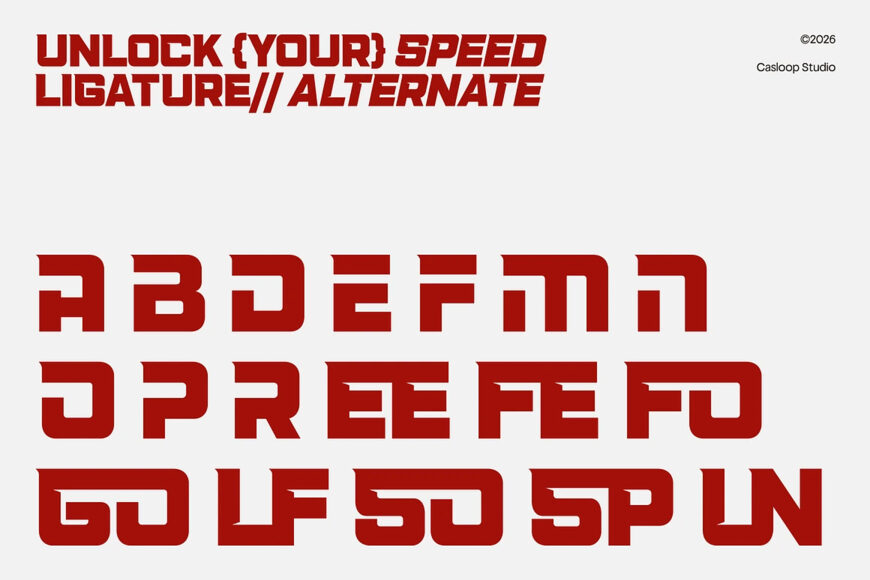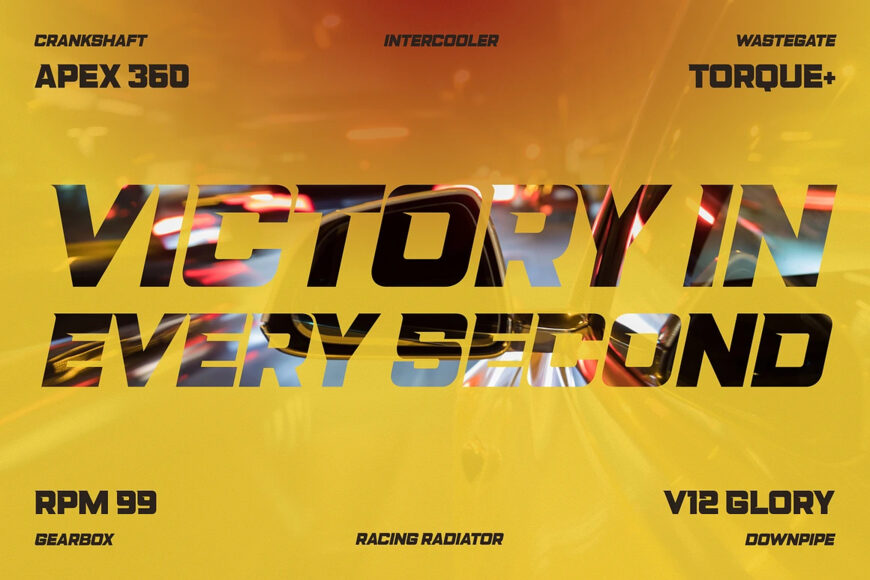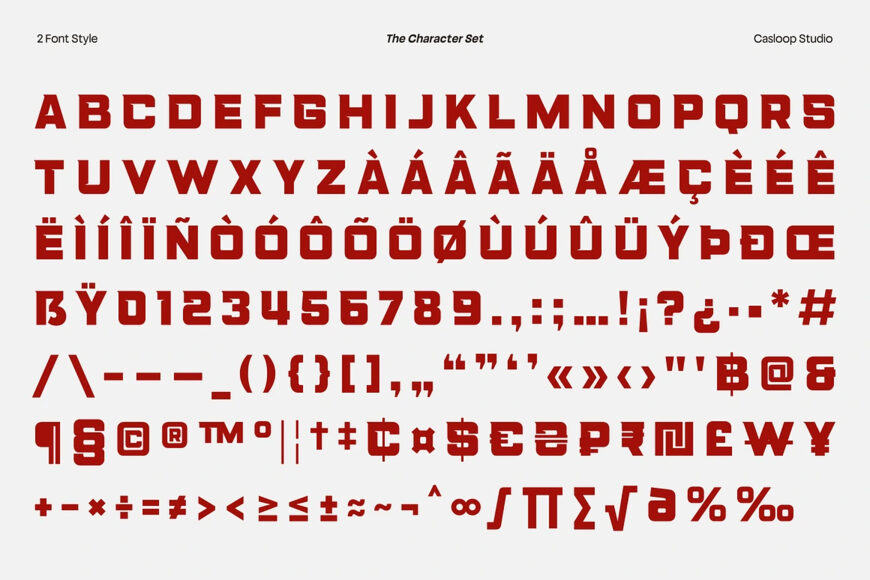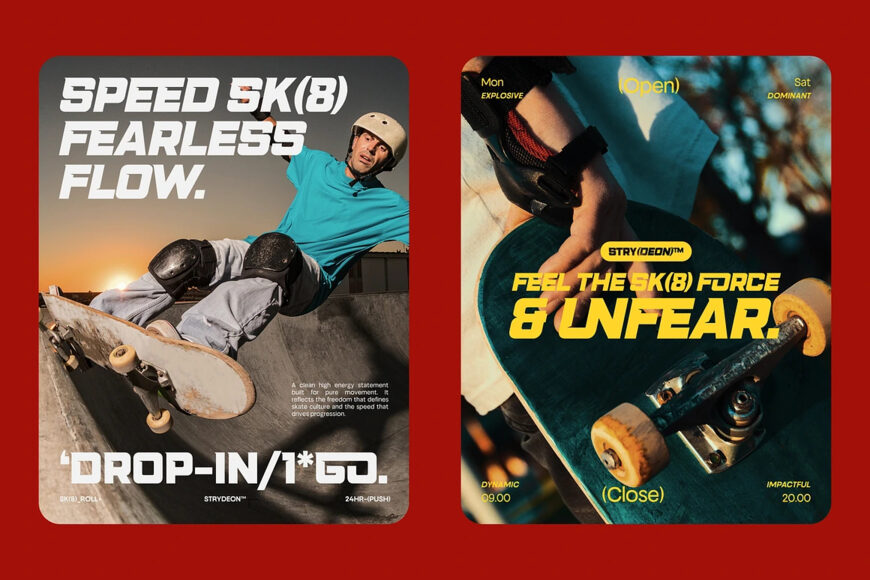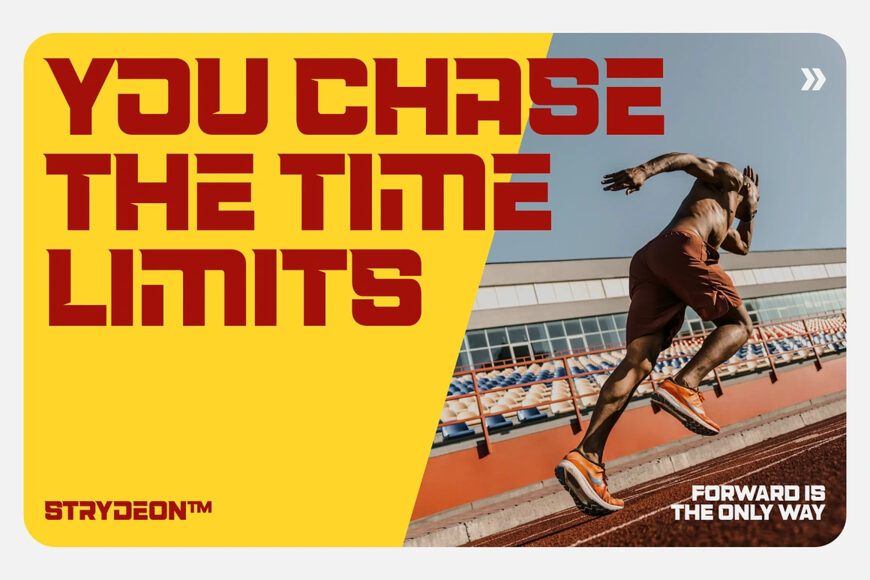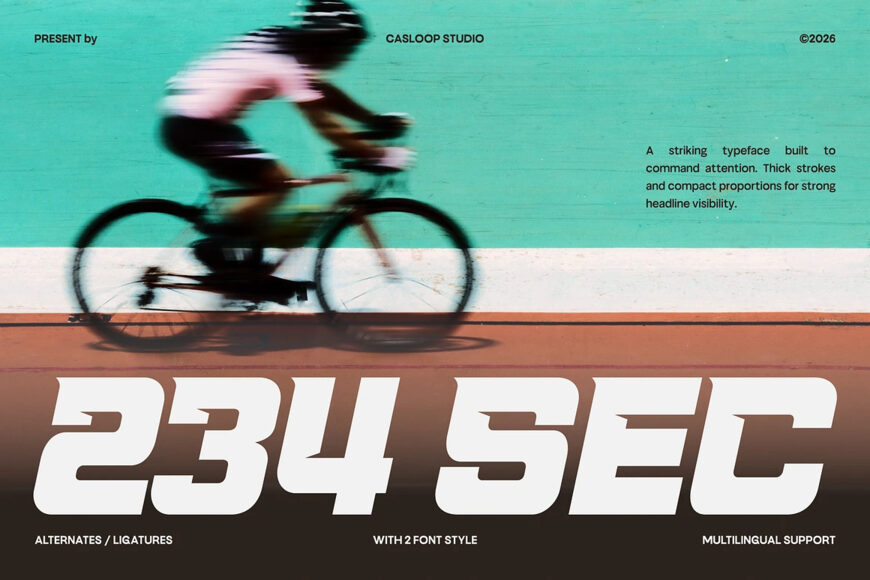
234 Sec Font
234 Sec is a bold sport headline display font designed to capture the intensity and motion of competitive athletics. Dynamic details like the SP and GO ligatures introduce a sense of forward movement, while alternate G and R forms enhance its aggressive, high-performance personality.
With its powerful silhouette and energetic rhythm, 234 Sec is perfectly suited for racing visuals, sports branding, gym identities, logos, and headline designs that demand speed, strength, and visual dominance.